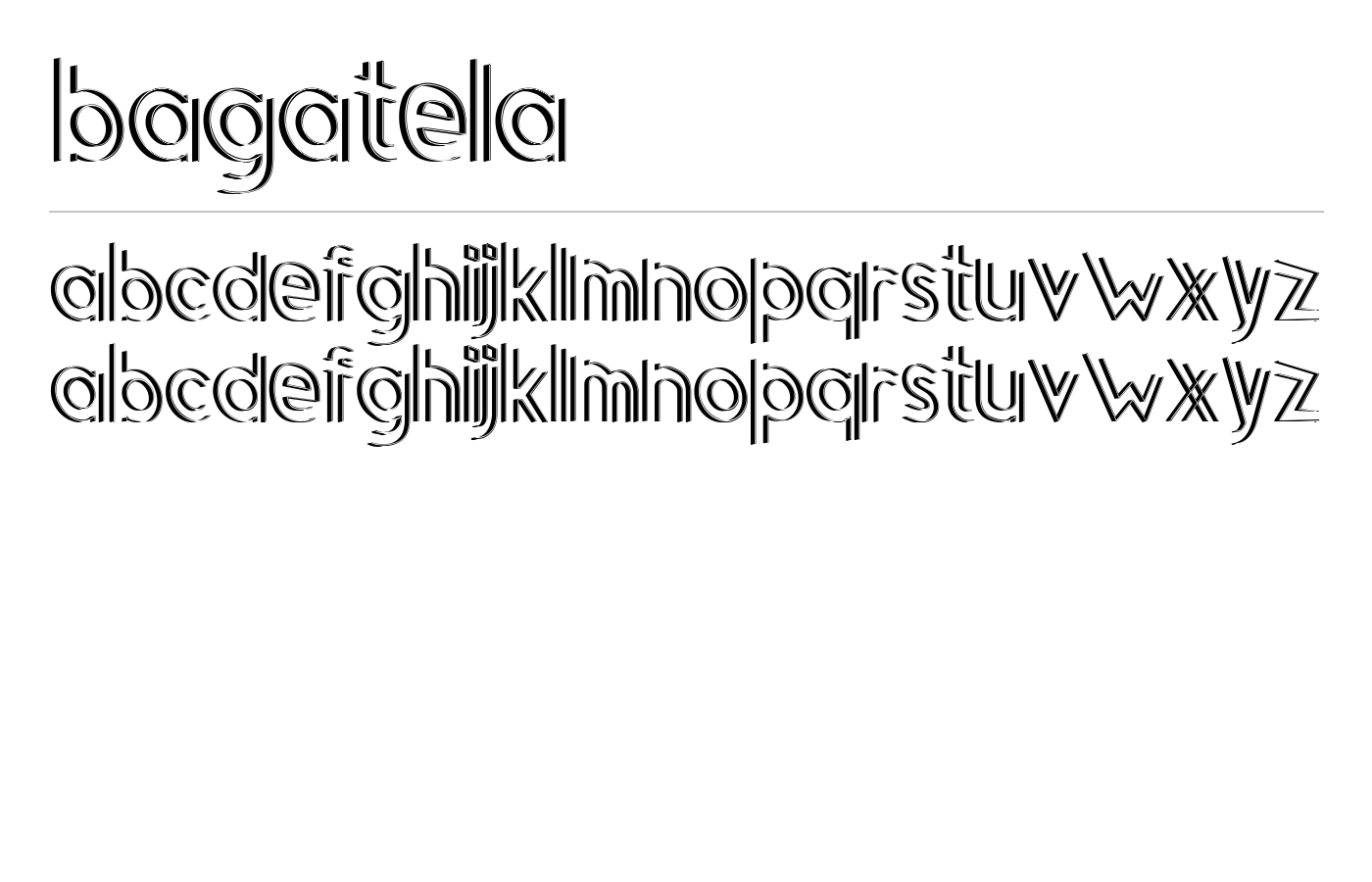
Bagatela is a modern, artistic sans-serif font featuring a unique layered outline style that creates a playful yet sophisticated effect. Its clean geometric letterforms combined with a medium x-height and distinctive double-line strokes make it ideal for eye-catching headlines, logos, and creative branding projects. This font brings a contemporary, stylish flair to designs needing a bold, decorative touch without sacrificing readability.
Bagatela Font
About Bagatela Font
| Font family | Bagatela Font |